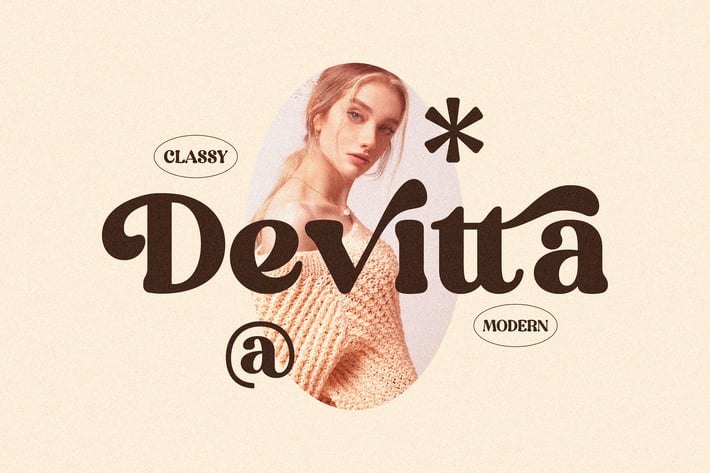
Devitta Stylish Serif Font
Devitta is a stylish and classy serif font designed with a touch of modern retro elegance. Its bold curves and flowing strokes bring personality and warmth to every composition, making it both playful and sophisticated. Perfect for designs that seek a balance between charm and modernity.
Stylish serif with unique letter curves and alternates
Retro-inspired yet contemporary character design
Great for headlines and display purposes
Fashion and lifestyle branding
Product packaging and boutique labels
Social media templates and posts
Editorial and magazine layouts
Logo design and business cards
Promotional materials and posters
Where vintage soul meets modern flair — Devitta turns every word into a classy statement of style.